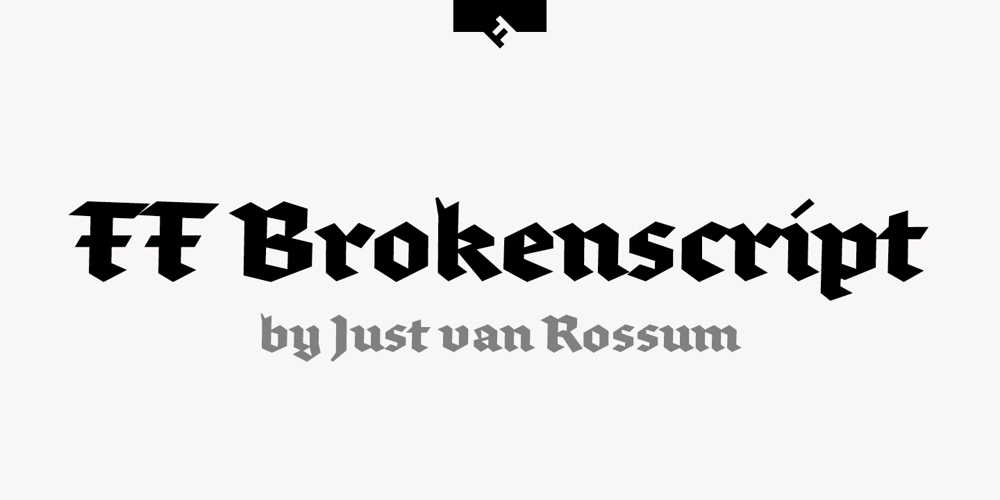
FF Brokenscript Font Family was designed by Just van Rossum and published by FontFont. FF Brokenscript contains 2 styles and family package options. Dutch type designer Just van Rossum created this blackletter FontFont in 1991. The family contains 2 weights: Bold and Condensed and is ideally suited for advertising and packaging, festive occasions, editorial and publishing, logo, branding and creative industries as well as poster and billboards. FF Brokenscript provides advanced typographical support with features such as ligatures, alternate characters, case-sensitive forms, and stylistic alternates. It comes with proportional oldstyle figures. This FontFont is a member of the FF Brokenscript super family, which also includes FF Brokenscript Rough.